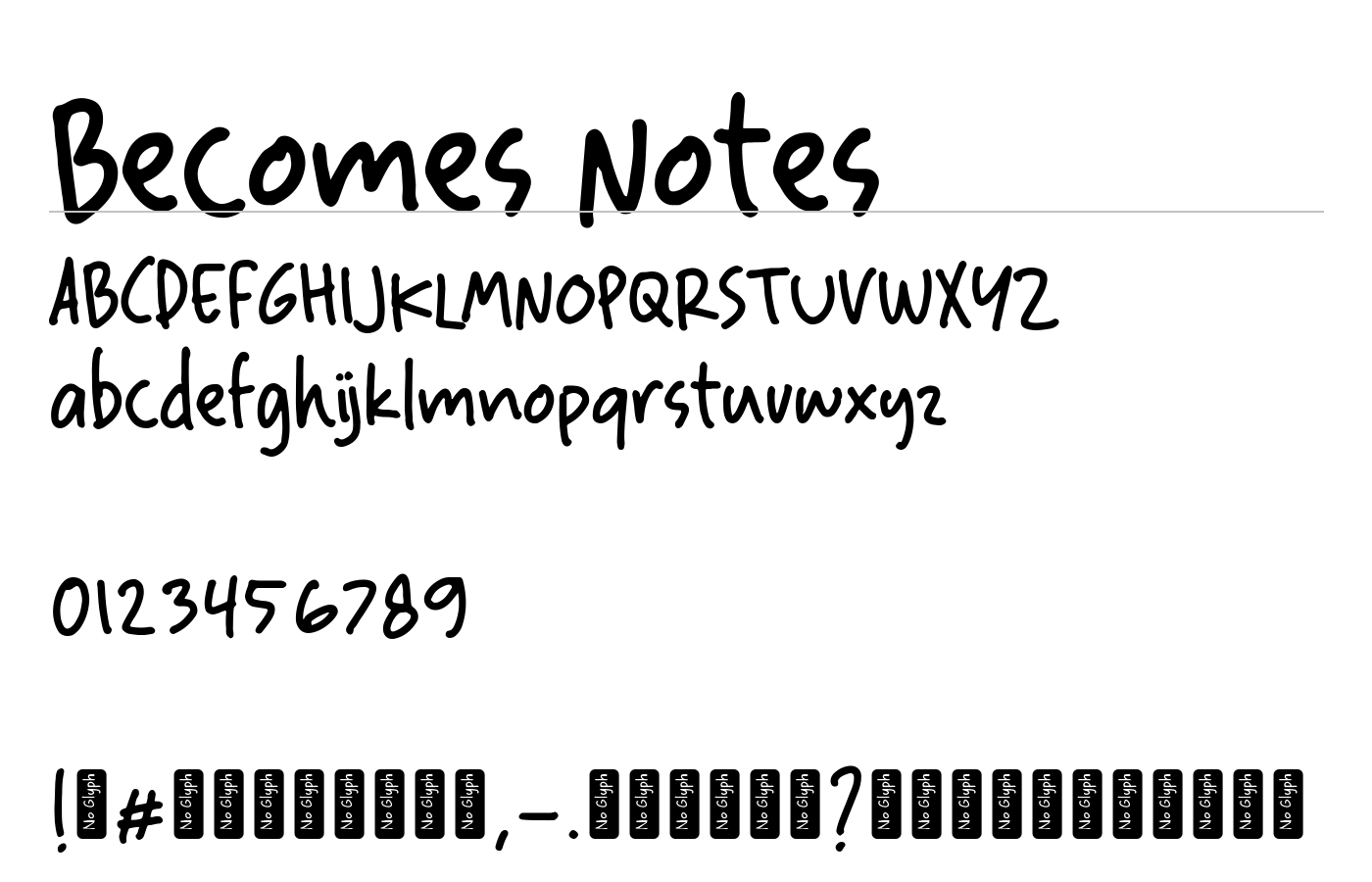
Becomes Notes is a casual handwritten sans serif font with a friendly and approachable feel. Its slightly irregular strokes and playful letterforms give it an informal, personal touch, making it ideal for designs that seek warmth and authenticity. This font works well for creative projects, casual branding, children’s materials, and any context where a relaxed and human vibe is desired.
Becomes Notes Font
About Becomes Notes Font